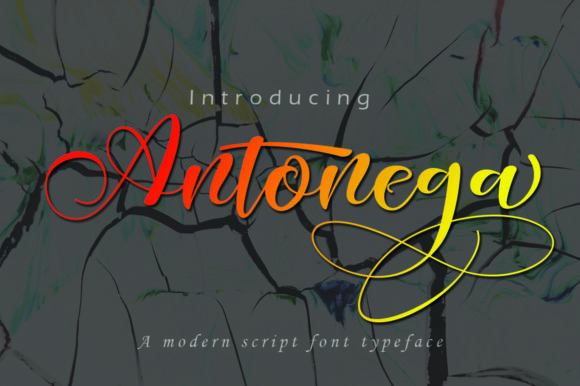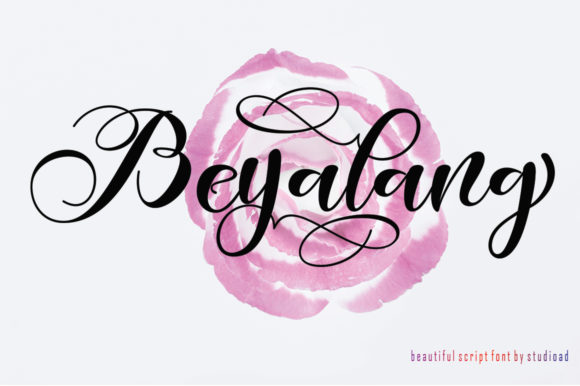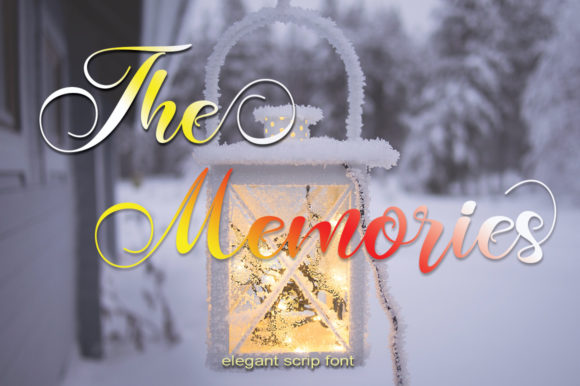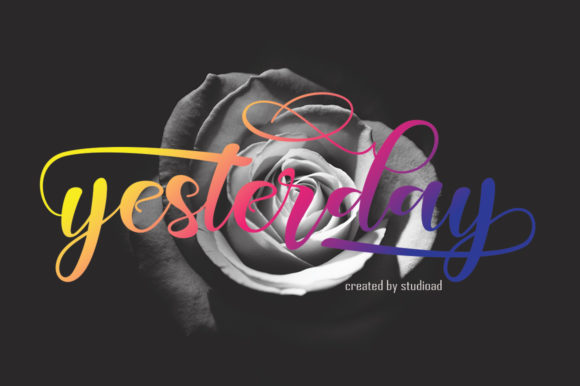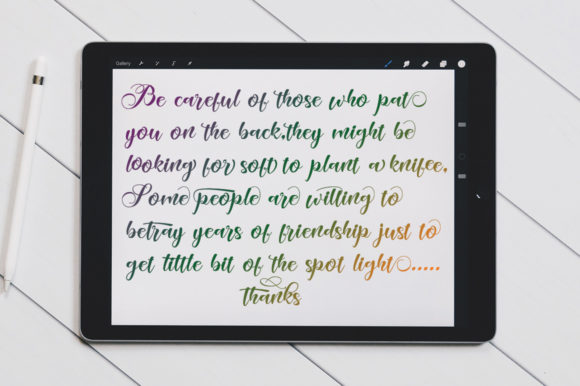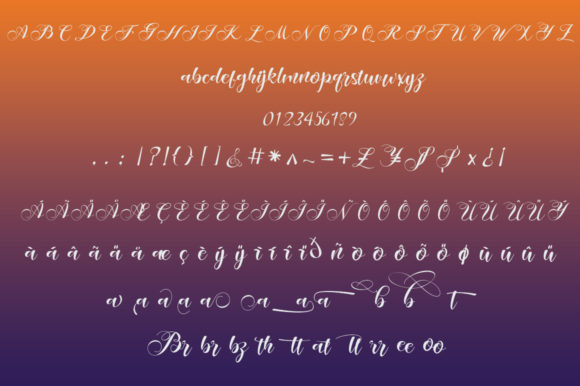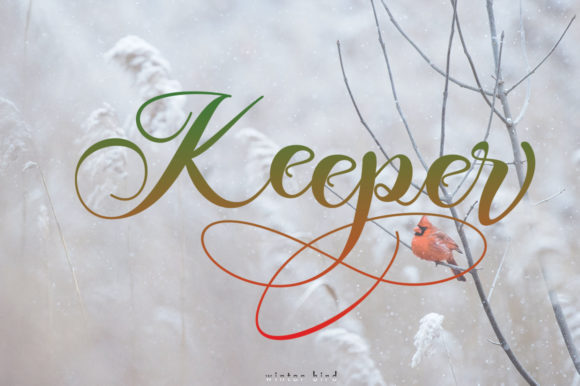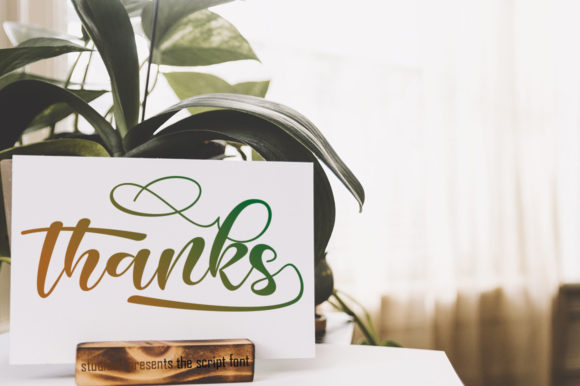
HomeScript FontsAntonega Font Script Fonts Antonega Font FacebookXPinterestWhatsApp Antonega Font Poster 2 Antonega Font Poster 3 Antonega Font Poster 4 Antonega Font Poster 5 Antonega Font Poster 6 Antonega Font Poster 7 Antonega Font Poster 8 About Antonega Font Antonega is a smooth and charming font that moves like an elegant dancer. Fall in love with its rich swashes. DOWNLOAD ON CREATIVE FABRICAThis font is sold and delivered by Creative Fabrica. Font Canyon may earn a commission if you buy through this link. People also explored Snowflake Font Butterfly Font Mellysia Monogram Font YWFT Caliper Dealerplate Canoomi Noel Font Arkqunie Outline Extra Black Font Matteny Angels Font Pulen Font 394 0 TagsAntonega Font Previous articleKids FontNext articleSeduh Font LEAVE A REPLY Cancel reply Comment: Please enter your comment! Name:* Please enter your name here Email:* You have entered an incorrect email address! Please enter your email address here Website: Save my name, email, and website in this browser for the next time I comment. Personal Use Free BD Lofi Personal Use Free Read more about this font Santhony Personal Use Free Read more about this font Americana Personal Use Free Read more about this font Splatter Splash Personal Use Free Read more about this font BLOG To increase your work productivity, choose the most readable fonts. In today's fast-paced work environment, where digital communication and information consumption are integral to our daily routines, the choice of fonts can significantly impact... How to Cut Any Font on Cricut: Convert a Font to SVG (Free) Best Fonts for YouTube Videos: Make Your Thumbnails Stand Out Best Fonts for T-Shirt Design – Top 2025 Picks